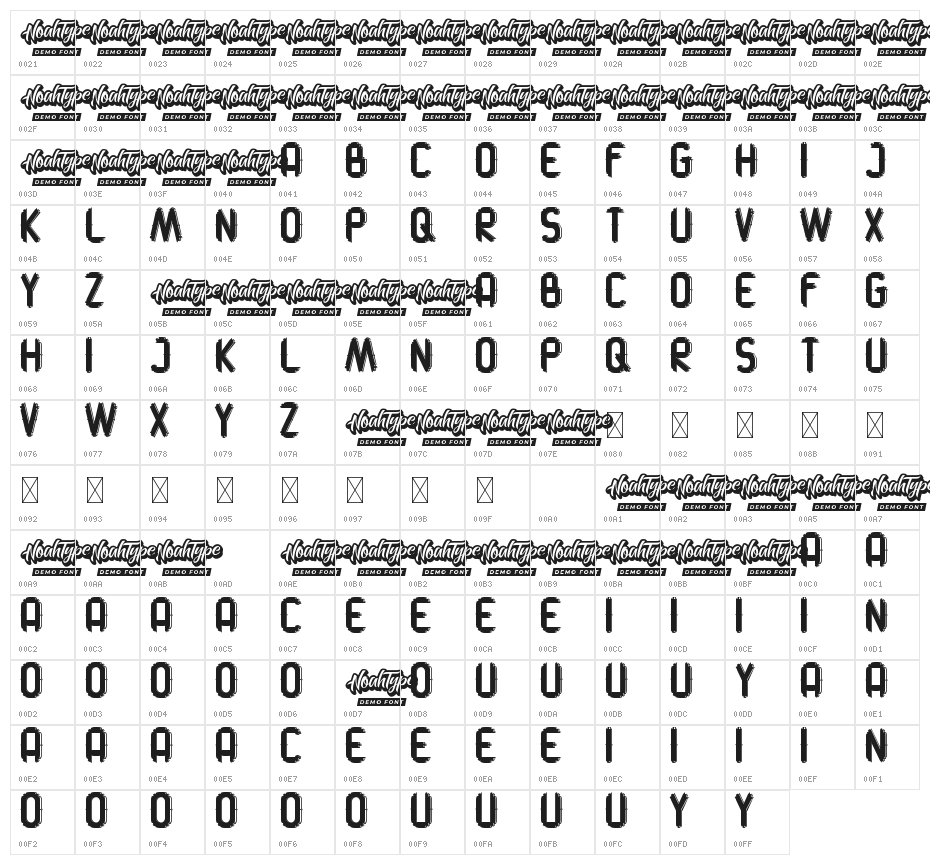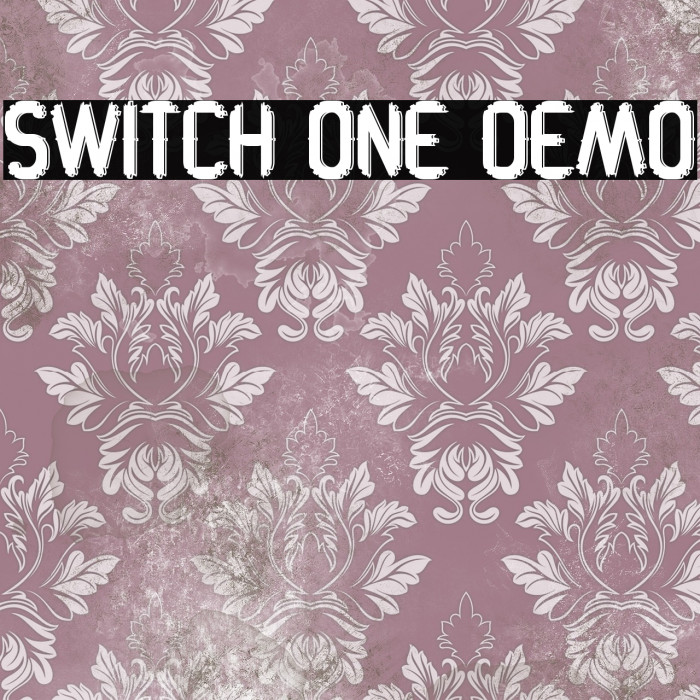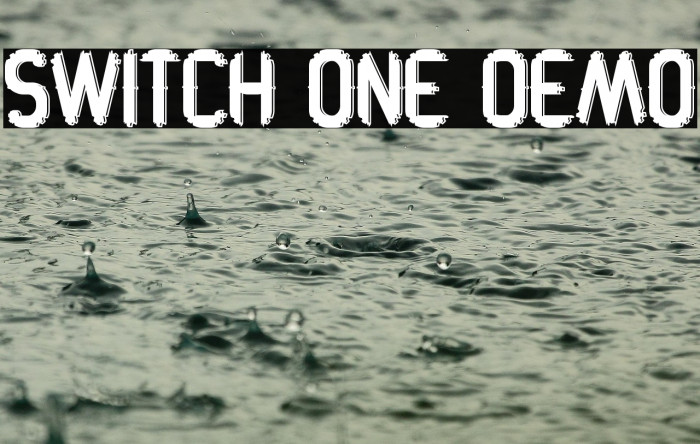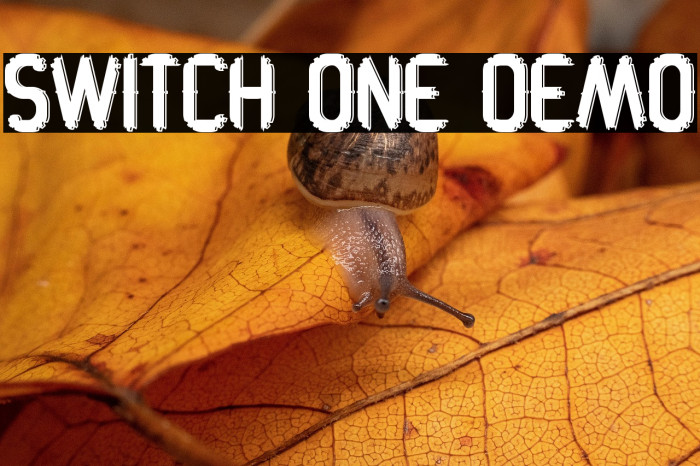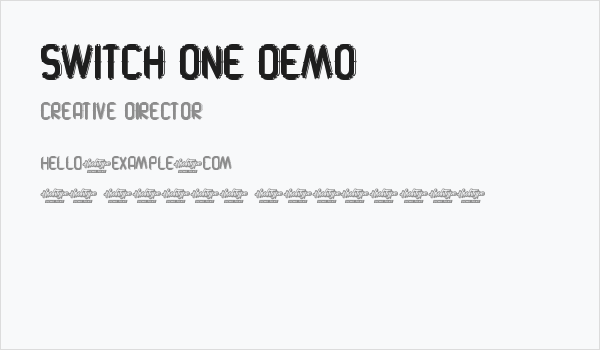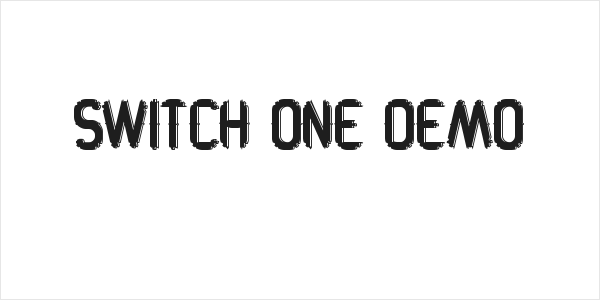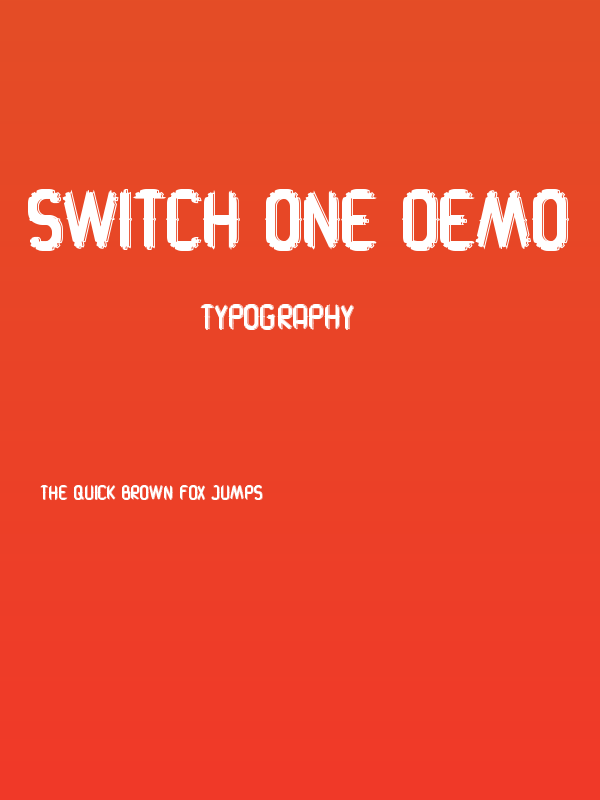
Switch One Demo Font
Switch One Demo Description
This font features a bold and striking design with a distinctly modern and industrial feel. The characters are constructed with thick, angular strokes that create a sense of strength and stability. The edges are sharp and geometric, giving the font a futuristic appearance. The uppercase letters are particularly prominent, with a uniform height and width that enhances their boldness. The lowercase letters maintain the same angular style, ensuring consistency across the typeface. The numbers and special characters follow the same design principles, making them easily recognizable and cohesive with the rest of the font. This typeface is ideal for projects that require a strong visual impact.